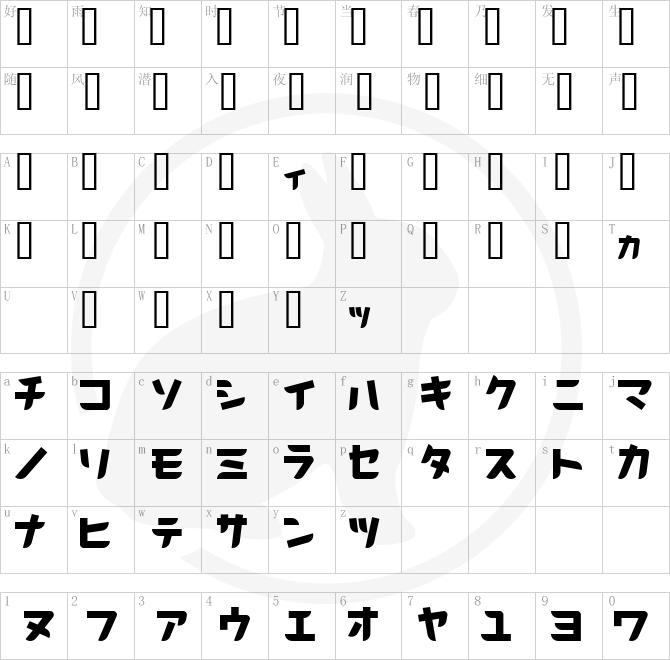
I2thoroughbred.ttf is a very beautiful artistic font, I2thoroughbred.ttf is widely used in the design and printing of various books and pictures,I2thoroughbred.ttf has a strong visual impact,I2thoroughbred.ttf is a commonly used font in newspapers, magazines and books, and is used in posters, e-commerce Poster design, store design, logo design, font design and other fields.I2thoroughbred.